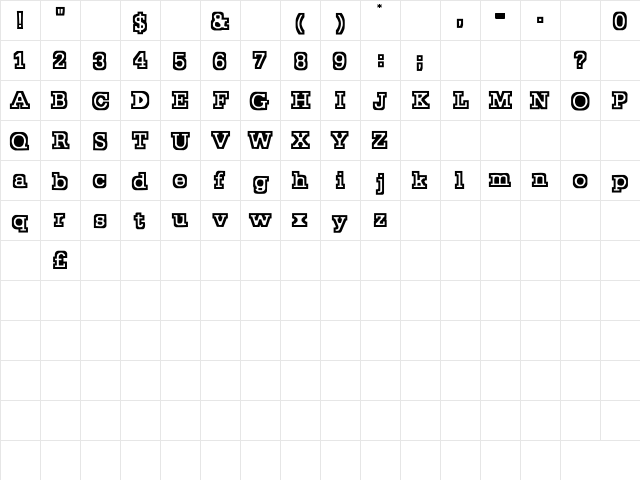
Stocky Regular
Design Context for Stocky Typeface
Stocky offers clean, dependable letterforms without strong stylistic allegiance, making it a practical choice for designers who need flexibility.